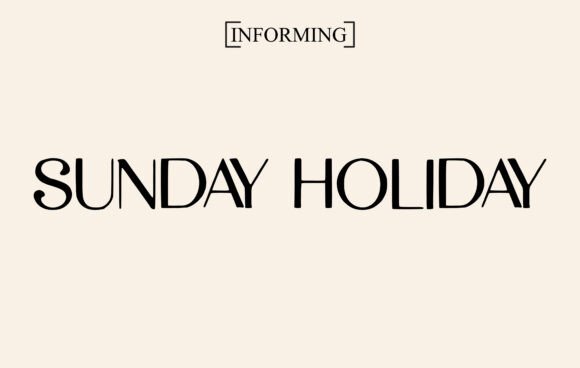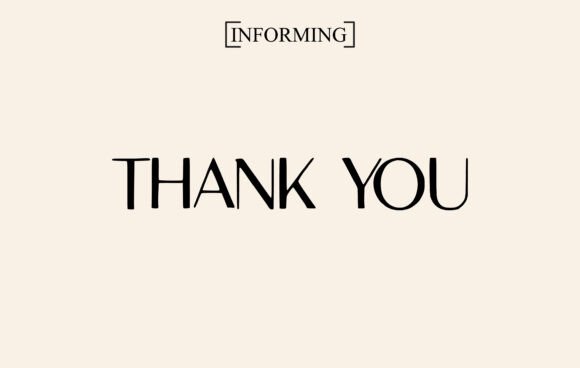
Cindy Font: Elevate Your Creative Projects with Style and Legibility
Are you tired of using the same old fonts for your creative projects? Look no further than Cindy Font, a versatile and stylish font designed to take your ideas to the next level. With its perfect blend of legibility and aesthetics, Cindy Font is the ideal choice for designers, crafters, and anyone looking to add a touch of elegance to their work.
A Font Designed for Creativity
Cindy Font is more than just a font – it’s a tool designed to help you bring your creative ideas to life. Its unique design makes it perfect for a wide range of applications, from magazine headlines and t-shirts to social media graphics, branding, wedding invitations, and cards. Whether you’re a professional designer or a DIY enthusiast, Cindy Font is sure to become your go-to choice for all your creative projects.
Legible and Versatile
One of the standout features of Cindy Font is its exceptional legibility. Whether you’re using it as a title or body text, this font is easy to read and understand, making it perfect for both print and digital applications. Its versatility is another major advantage, allowing you to use it for a wide range of projects, from formal and professional to casual and playful.
Cindy Font is a dream come true for designers and crafters. Its stylish and modern design makes it perfect for creating stunning visual content that grabs attention and leaves a lasting impression. Whether you’re designing a logo, brochure, or social media graphic, Cindy Font is sure to help you create a professional and polished look that elevates your brand or personal style.
Endless Possibilities
The possibilities with Cindy Font are endless. Here are just a few ideas to get you started:
- Magazine headlines and articles
- T-shirts and apparel
- Cards and invitations
- Brochures and flyers
- Posters and signage
Why Choose Cindy Font?
So why choose Cindy Font over other fonts? Here are just a few reasons:
- Unique design: Cindy Font has a unique and stylish design that sets it apart from other fonts.
- Exceptional legibility: This font is easy to read and understand, making it perfect for both print and digital applications.
- Versatility: Cindy Font can be used for a wide range of projects, from formal and professional to casual and playful.
Get Creative with Cindy Font
Cindy Font is a versatile and stylish font designed to help you bring your creative ideas to life. With its exceptional legibility, unique design, and ease of use, this font is perfect for designers, crafters, and anyone looking to add a touch of elegance to their work. Whether you’re creating a magazine headline, t-shirt, or social media graphic, Cindy Font is sure to become your go-to choice for all your creative projects.